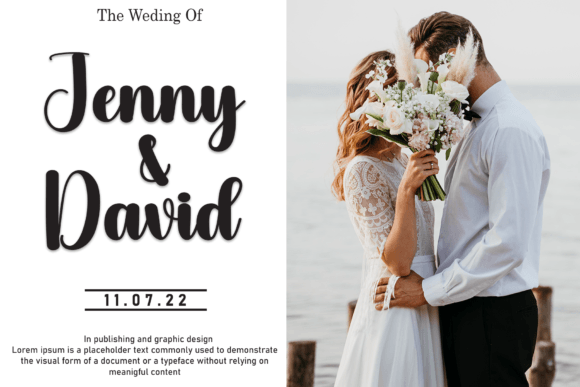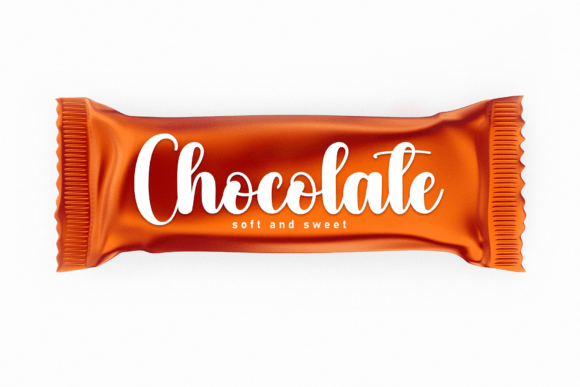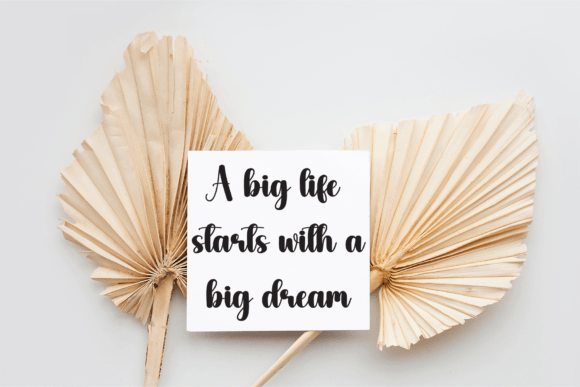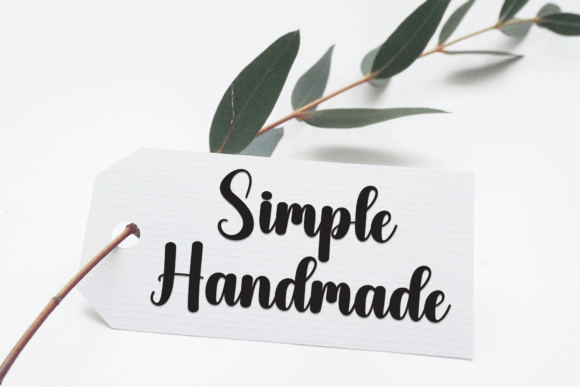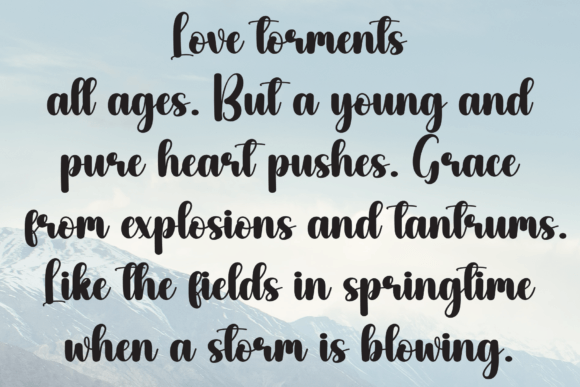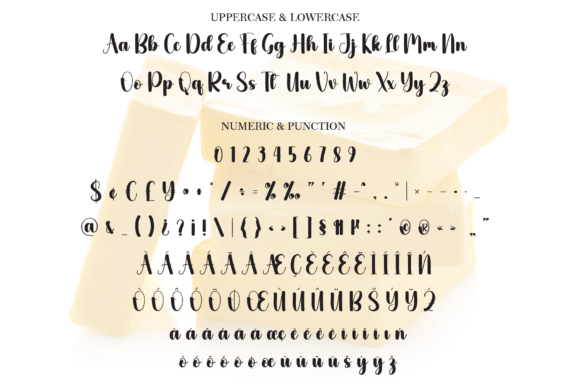
Introducing Butter Font: The Perfect Handwritten Script for Your Creative Projects
Are you looking for a font that adds a touch of elegance and sophistication to your designs? Look no further than Butter Font, a modern handwritten script that is perfect for any project that requires a personalized feel. In this article, we’ll take a closer look at the features and benefits of Butter Font, and explore how it can elevate your designs to the next level.
What is Butter Font?
Butter Font is a beautiful, modern handwritten script that is designed to look natural and stylish. Its unique and flowing curves make it perfect for a wide range of creative projects, from wedding invitations and greeting cards to logos and business cards. With its versatile style, Butter Font can add a customized touch to any design, making it stand out from the crowd.
Key Features of Butter Font
- Handwritten feel: Butter Font has a natural, handwritten feel that adds a personal touch to any design.
- Modern and stylish: The font’s modern and stylish curves make it perfect for designs that require a touch of elegance and sophistication.
- Versatile: Butter Font can be used for a wide range of projects, from wedding invitations and greeting cards to logos and business cards.
- Easy to read: Despite its handwritten feel, Butter Font is easy to read and understand, making it perfect for designs that require a clear and concise message.
Use Cases for Butter Font
Butter Font is perfect for a wide range of creative projects, including:
- Wedding invitations: Add a touch of elegance and sophistication to your wedding invitations with Butter Font.
- Greeting cards: Create personalized greeting cards for special occasions, such as birthdays, anniversaries, and holidays.
- Logos: Use Butter Font to create a unique and memorable logo for your business or brand.
- Business cards: Add a touch of personality to your business cards with Butter Font.
- Quotes and posters: Create inspiring quotes and posters with Butter Font.
Why Choose Butter Font?
There are many reasons why you should choose Butter Font for your creative projects. Here are a few:
- Unique and stylish: Butter Font is a unique and stylish font that will add a touch of elegance and sophistication to your designs.
- Versatile: The font’s versatility makes it perfect for a wide range of creative projects.
- High-quality: Butter Font is a high-quality font that is designed to look great on any device or medium.
Tips for Using Butter Font
Here are a few tips for using Butter Font in your creative projects:
- Use it sparingly: Butter Font is a beautiful font, but it can be overwhelming if used too much. Use it sparingly to add a touch of elegance and sophistication to your designs.
- Pair it with other fonts: Butter Font pairs well with other fonts, such as sans-serif fonts. Experiment with different font combinations to find the perfect look for your design.
- Adjust the size and color: Adjust the size and color of Butter Font to fit your design. A smaller size and a bold color can make the font stand out, while a larger size and a pastel color can create a softer look.
Butter Font is a beautiful and versatile handwritten script that is perfect for any creative project that requires a personalized feel. Its unique and flowing curves make it perfect for a wide range of designs, from wedding invitations and greeting cards to logos and business cards. With its ease of use and high-quality design, Butter Font is a great choice for designers and crafters looking to add a touch of elegance and sophistication to their designs.